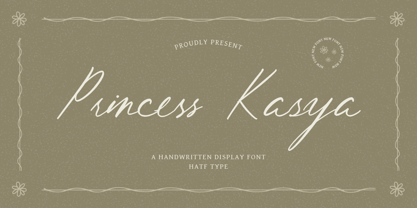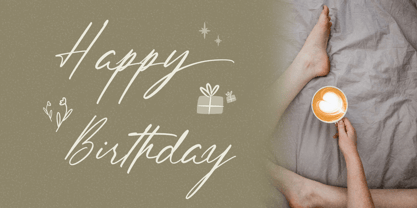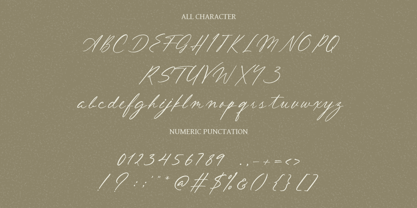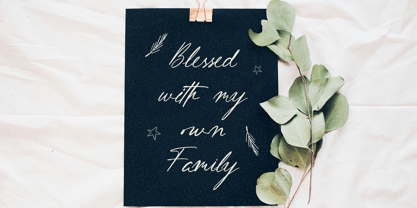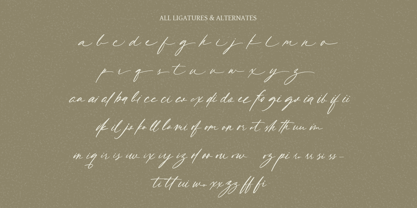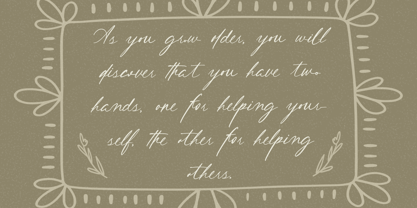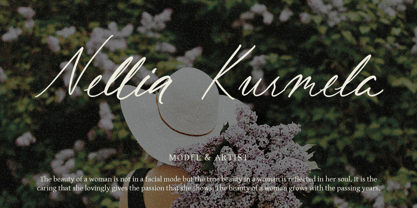
Princess Kasya
by Hatftype
The Princess Kasya Font Family was designed by Asep Rendi and published by Hatftype. Princess Kasya contains 1 styles. More about this family
Bring the graceful charm and magic of fairy tales with Princess Kasya, a handwritten display font that exudes softness and classic beauty.
Each letter in Princess Kasya is designed with a smooth yet characterful stroke, making it a perfect choice for various creative projects such as wedding invitations, greeting cards, logo designs, and inspirational quotes. This font brings a light, elegant feel, bringing to life a feminine, alluring, and warm impression.
Create a warm atmosphere with Princess Kasya that will transform your work into a special masterpiece. Let your writing speak with a touch of princess elegance.
Designers: Asep Rendi
Foundry: Hatftype
Princess Kasya